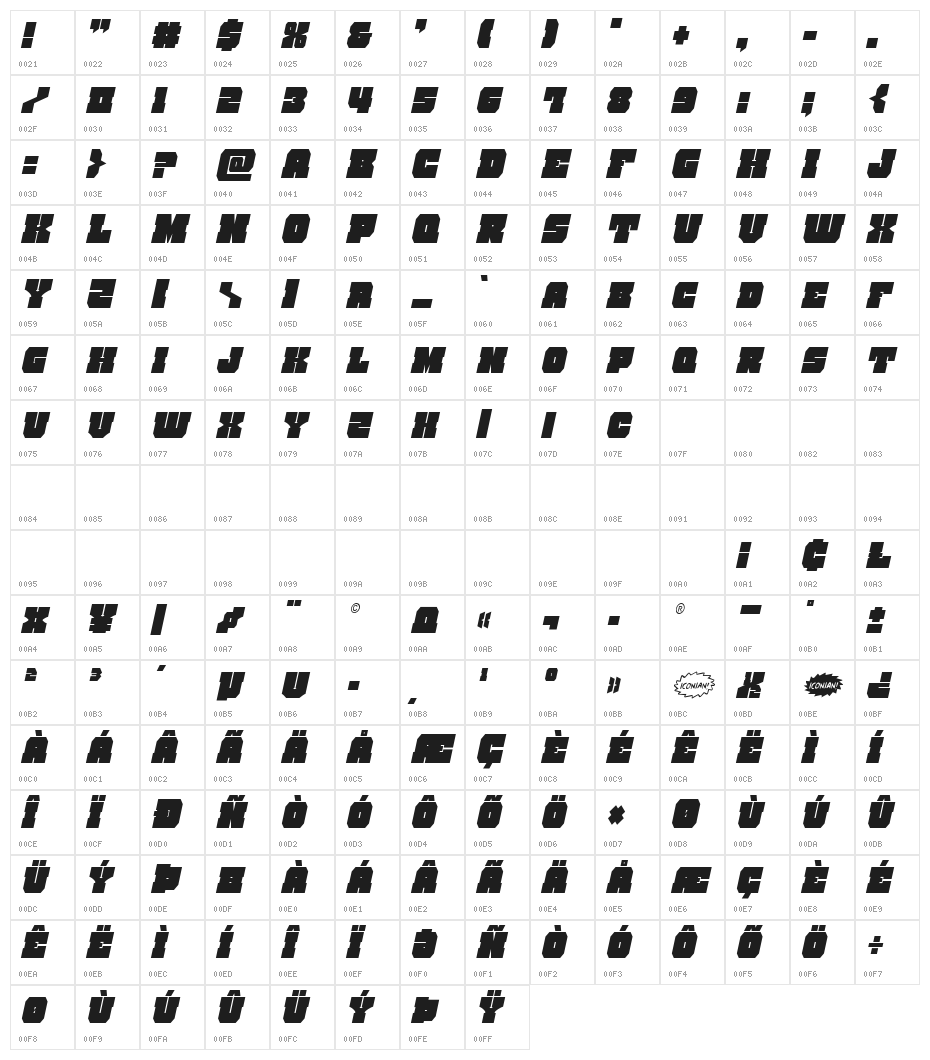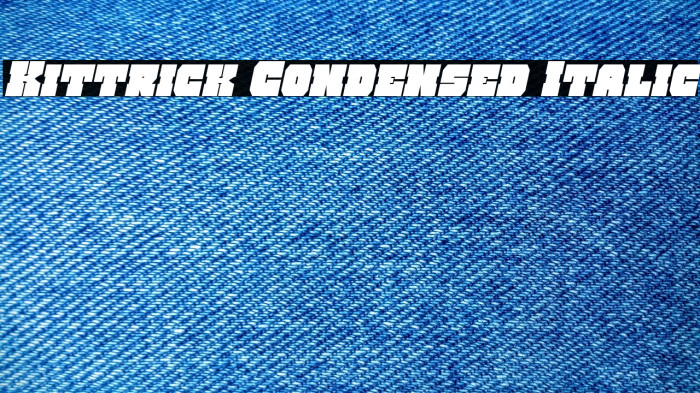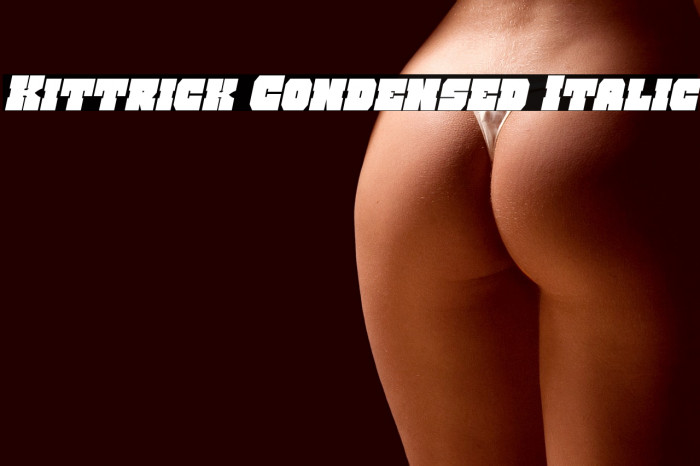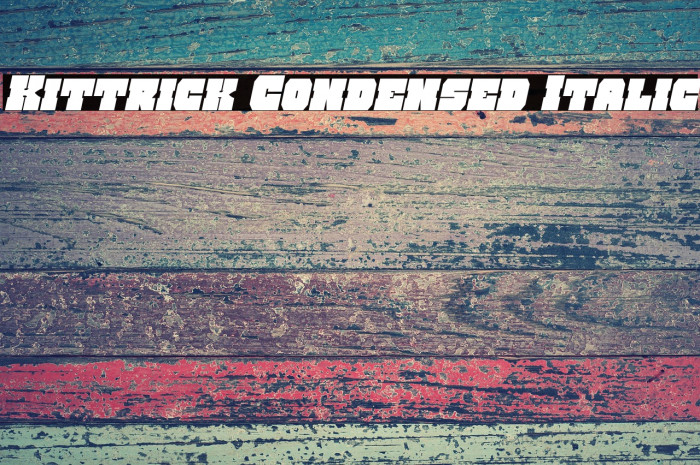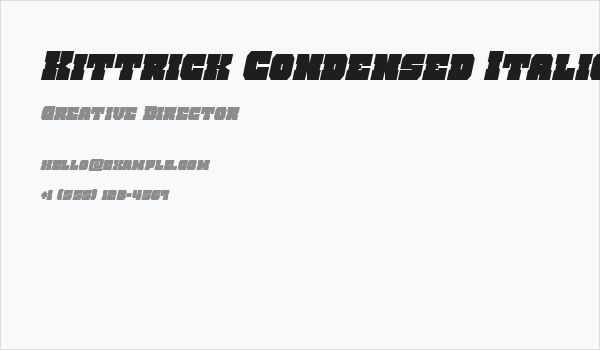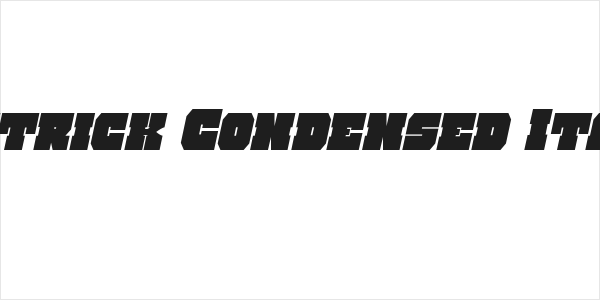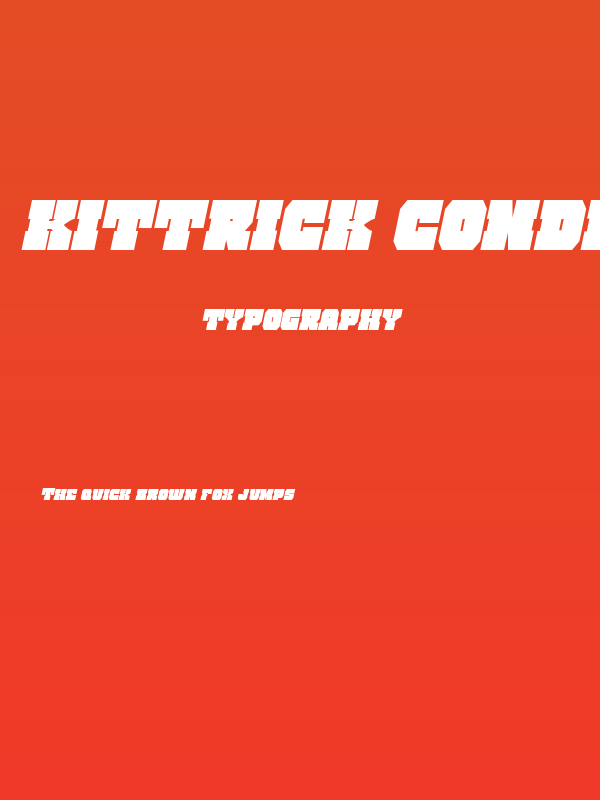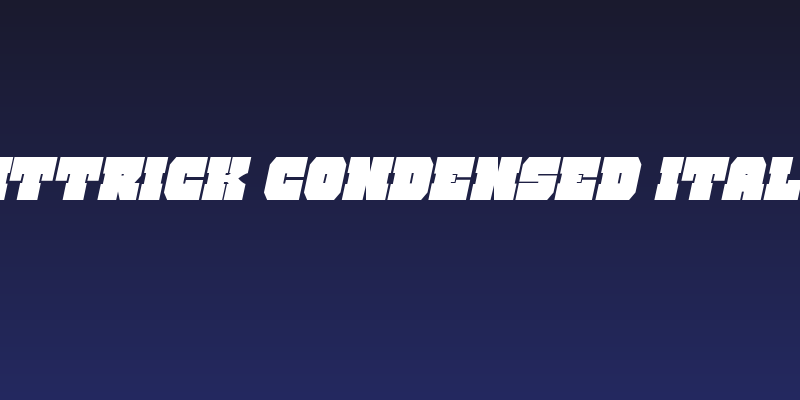
Kittrick Condensed Italic Font
Kittrick Condensed Italic Description
This font features a bold, condensed style with a distinct italic slant, giving it a dynamic and energetic appearance. The characters are blocky and geometric, with sharp angles and a strong presence. The uppercase and lowercase letters maintain a consistent weight, contributing to a cohesive look. The numerals and special characters follow the same bold and angular design, ensuring uniformity across all glyphs. The condensed nature of the font allows for efficient use of space, making it suitable for impactful headlines and titles.
| Proposed Projects | Ideal for sports branding, dynamic posters, edgy magazine covers, and modern advertising campaigns. |